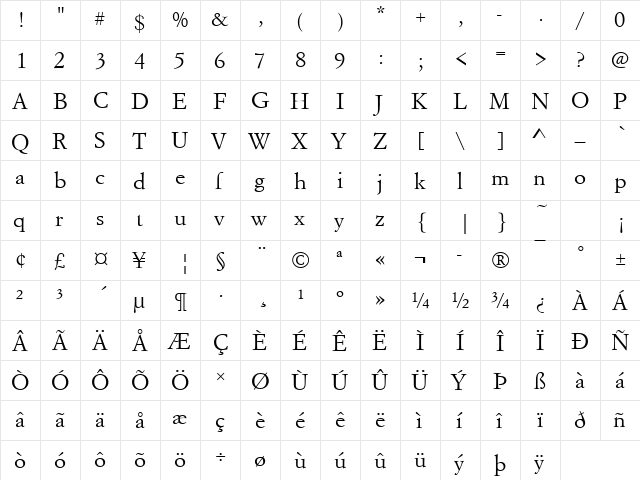
GaramondNo9TReg Regular
GaramondNo9TReg is a composed and adaptable typeface that performs quietly and consistently across a wide range of design contexts.